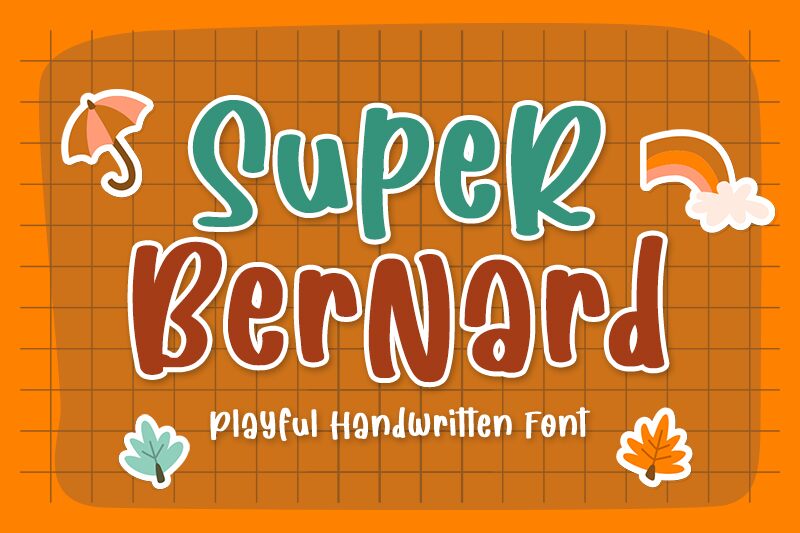
Super Bernard font is a playful handwritten font designed by M Arif Dwi Prasetyo & Eko Nurcahyo of Creakokun Studio.
Super Bernard
M Arif Dwi Prasetyo & Eko Nurcahyo